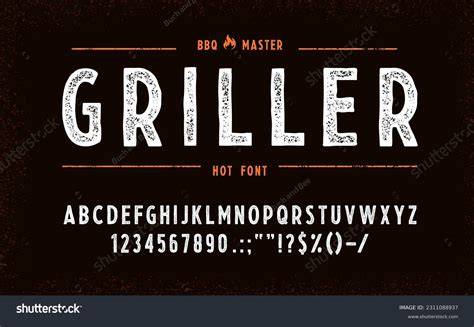
Funky And Fabulous Bbq Fonts To Spice Up Your 2023 Summer
As summer 2023 approaches, it's time to start thinking about all the delicious BBQs we'll be having! But if you're looking to add an extra bit of flare to your backyard gatherings, why not try out some of the hottest BBQ fonts around? With these fun, eye-catching fonts, you'll be sure to impress your guests and give your cookouts a special touch this summer!
Barbecue Sauce Font
If you want to add a bit of zest to your BBQs this summer, why not try out the Barbecue Sauce font? This fun font is a great way to add a unique touch to your text, and your guests will be sure to appreciate it! The font itself is inspired by the iconic classic of BBQ sauce, with a bold and bubbly look that will make your text stand out. The font is also quite versatile, as it can be used for anything from invitations to signage – it's the perfect way to add a bit of BBQ flair to your summer gatherings!
Smokehouse Font
For a classic BBQ look, nothing beats the Smokehouse font. This font is perfect for any event that centers around the smoky flavors of BBQ, as it has a classic and rustic feel. The font itself is inspired by classic smokehouse lettering, with a bold and slightly distressed look that will give your text a unique and authentic feel. It's perfect for any type of text, from invitations to signage, and it's sure to bring a bit of old-world charm to your BBQs this summer.
Grill Master Font
If you're looking for a more modern take on BBQ fonts, the Grill Master font is a great choice. This font is a great way to add a bit of flair to your text, as it has a bold, contemporary look that will make your text stand out. The font was designed to be used for anything from invitations to signage, and it's sure to give your BBQs a unique and stylish touch. It's also incredibly versatile, so it can be used for any type of text you need.
Outdoor Grill Font
For a classic, bold look, why not try out the Outdoor Grill font? This font is perfect for any BBQ-based event, as it has a bold and rustic feel that will give your text a unique and authentic look. The font itself is inspired by classic outdoor grilling lettering, with a bold and slightly distressed look that will make your text stand out. It's perfect for any type of text, from invitations to signage, and it's sure to bring a bit of old-world charm to your BBQs this summer.
Adding BBQ Fonts to Your Summer Gatherings
As you can see, there are a variety of BBQ fonts available to choose from this summer – so why not try one out and add some extra flair to your backyard gatherings? Whether you're looking for a classic or modern look, there's sure to be a font that fits your needs. So don't hesitate – give your summer BBQs a unique touch with one of these fun and funky BBQ fonts!